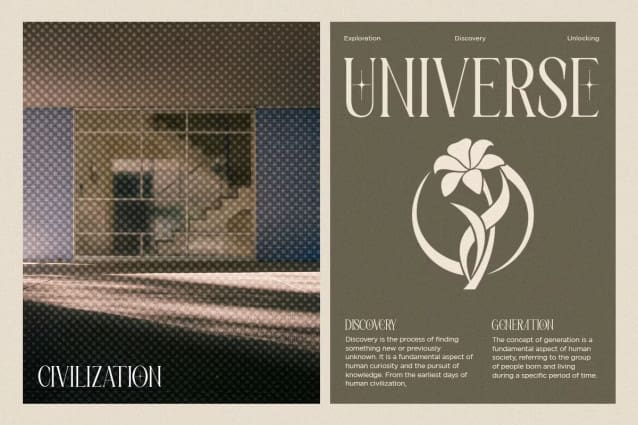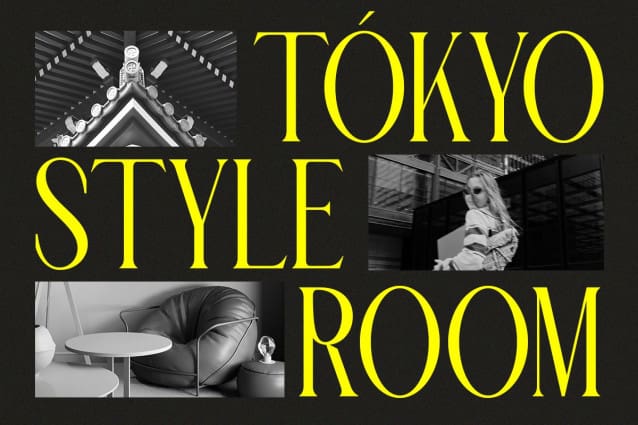
Gramon Font
Gramon Font – a stunning condensed font that blends style and elegance in every detail. Designed to convey a modern and sophisticated impression, Gramon features sleek and elegant letterforms with harmonious proportions. Each character is meticulously crafted to provide a contemporary feel.